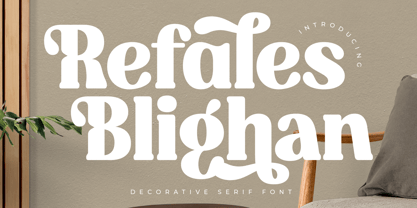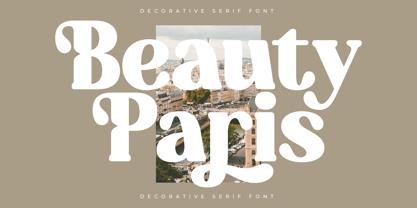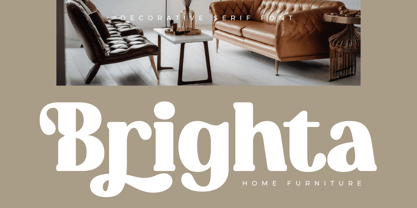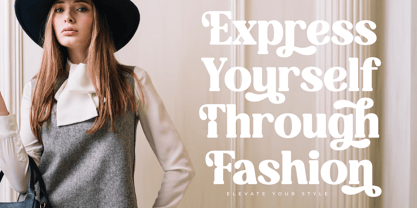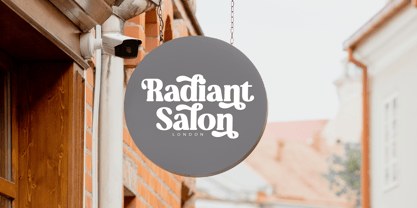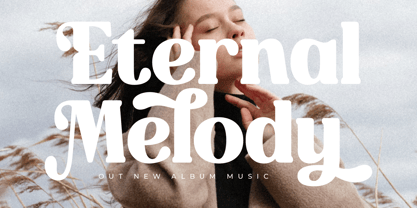
Refales Blighan
by Letterena Studios
The Refales Blighan Font Family was designed by Heru Utama Putra and published by Letterena Studios. Refales Blighan contains 2 styles and family package options. More about this family
Refales Blighan – Decorative Serif Font , from Letterena, is a Luxury Serif font, suitable for any projects such as: logos, branding projects, homeware designs, product packaging, mugs, quotes, posters, shopping bags, t-shirts, book covers, name card, invitation cards, greeting cards, label, photography, watermark, special events, and all your other luxury and beautiful projects that need a Luxury Serif taste.